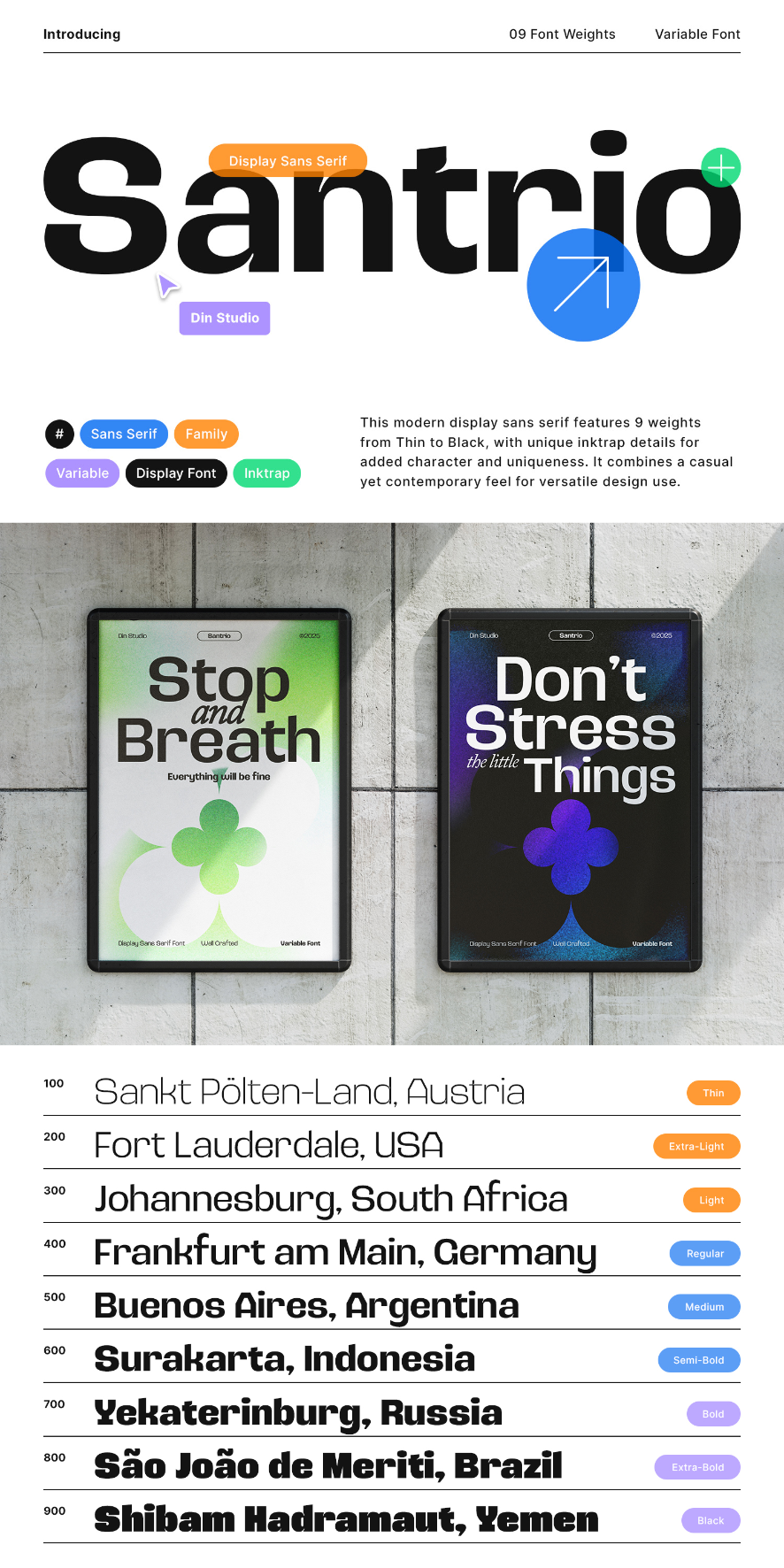
Santrio Font
About Santrio
Santrio is a modern sans-serif display font that combines simplicity and precision with a touch of uniqueness. Designed with detailed ink traps, this font not only enhances readability but also adds a subtle character to its clean and structured letterforms. With 9 different weights, from Thin to Black, Santrio provides flexibility for a wide range of design needs. Bring a balance of modern minimalism and technical craftsmanship to your designs with Santrio. In addition, enjoy the features here.
Santrio’s different weight fonts :
- Thin
- Extra Light
- Light
- Regular
- Medium
- Semi Bold
- Bold
- Extra Bold
- Black
Santrio fits in logos, branding, editorial design, headlines, posters, digital interfaces, and many more designs. Find out more ways to use this font by taking a look at the font preview.